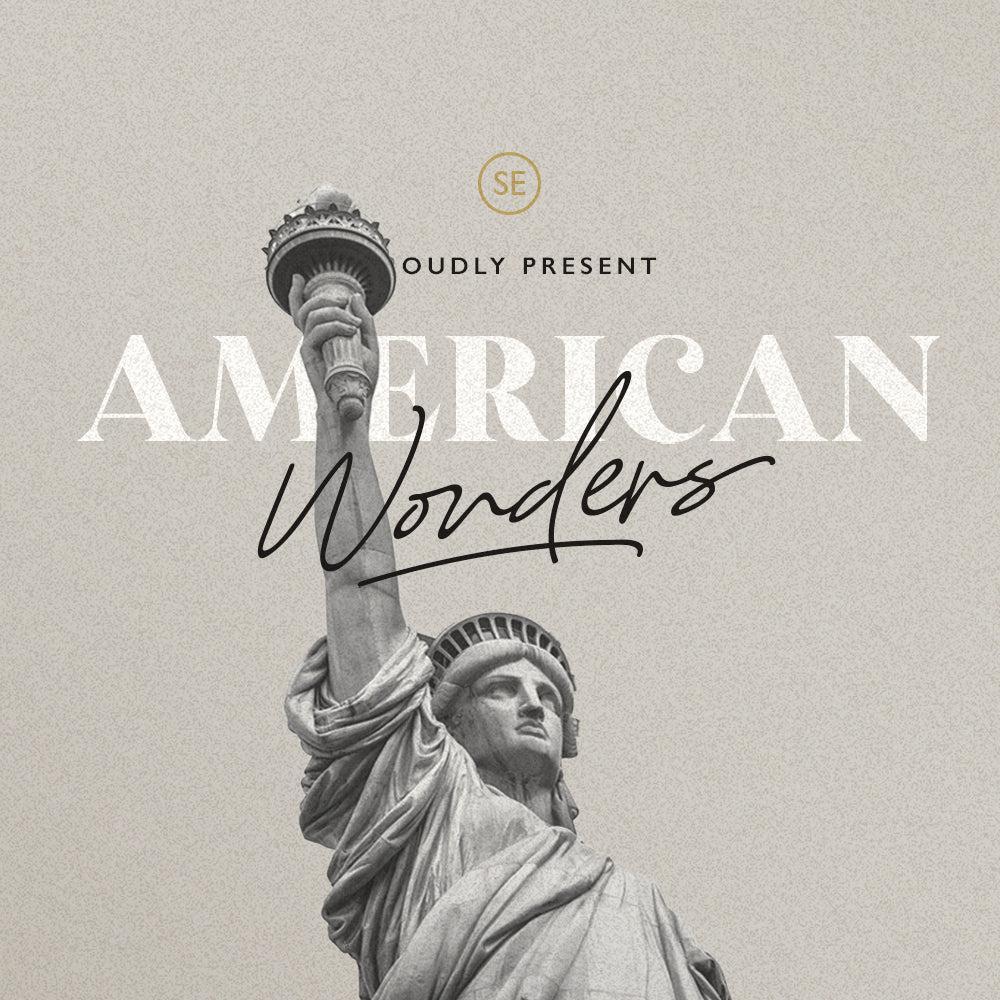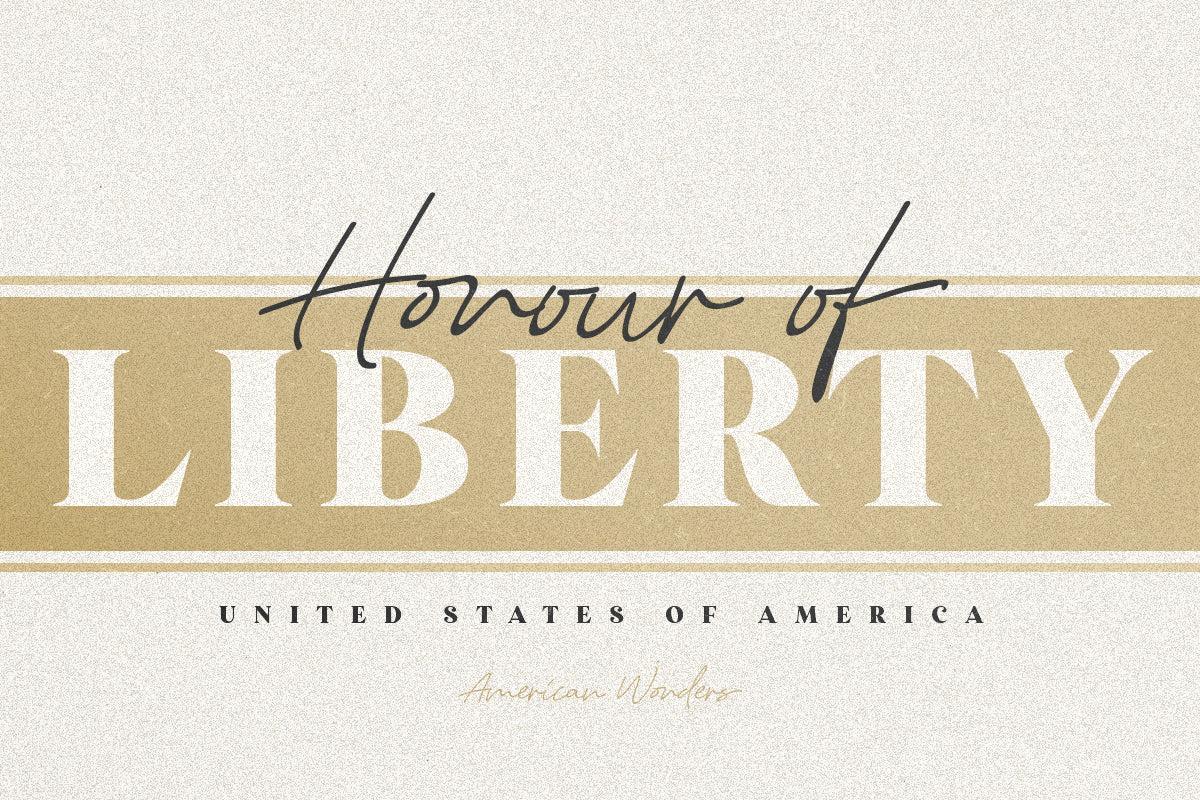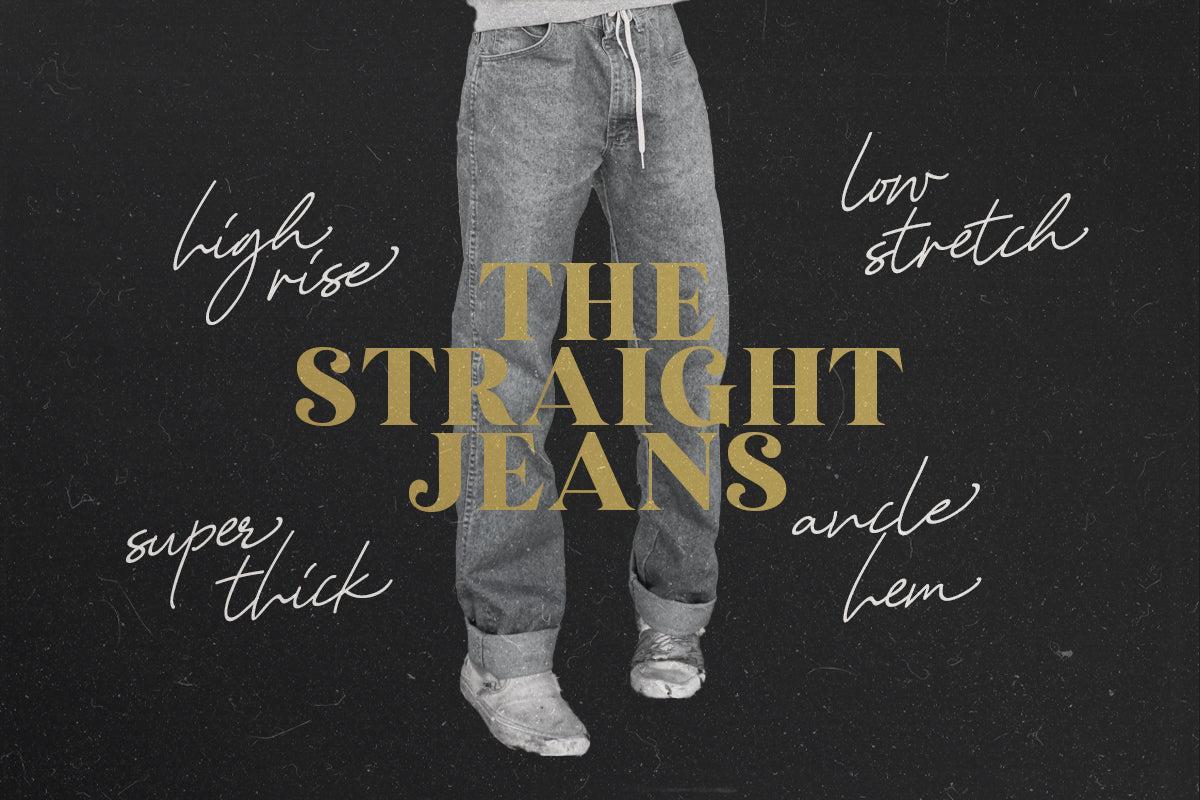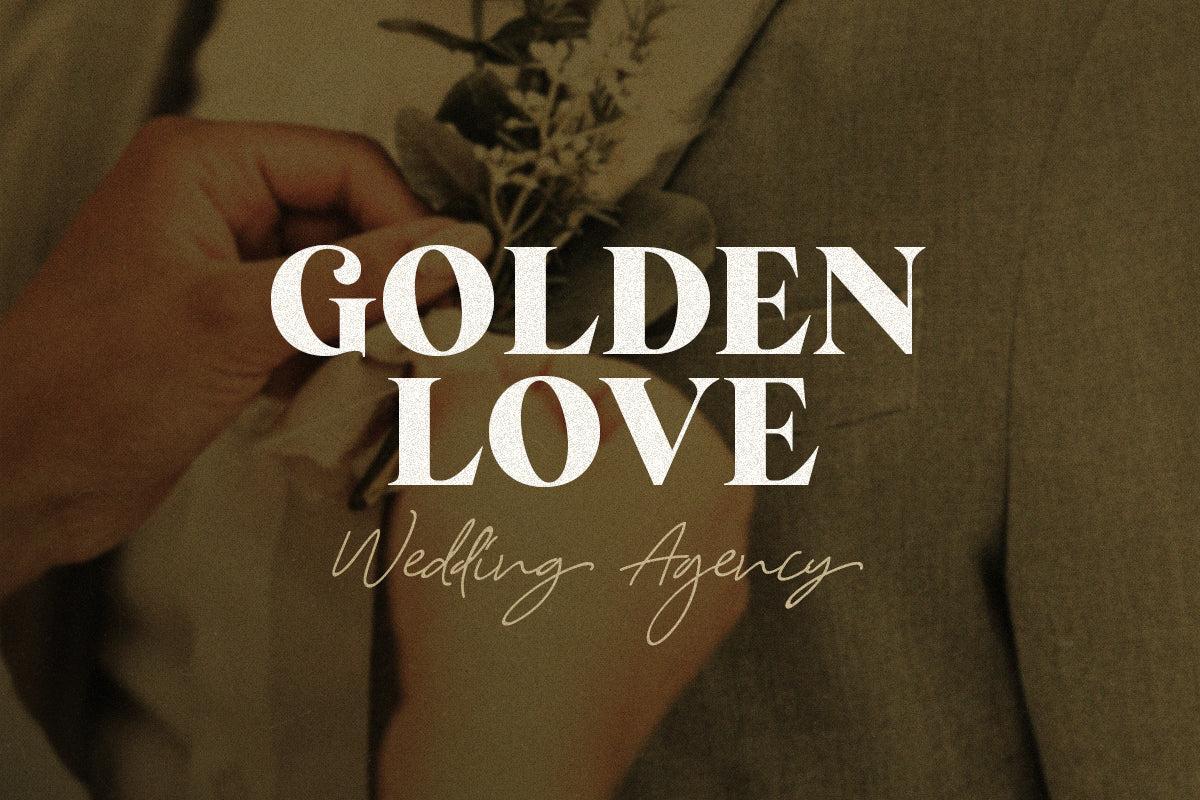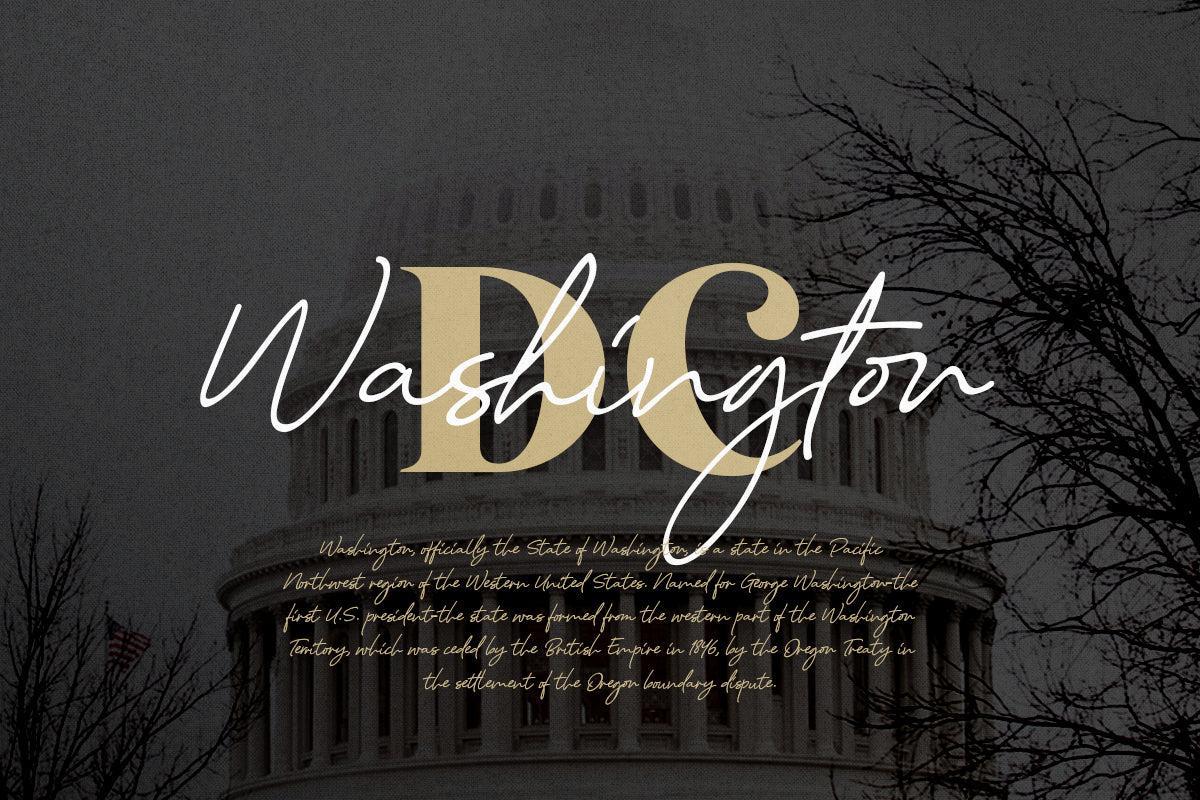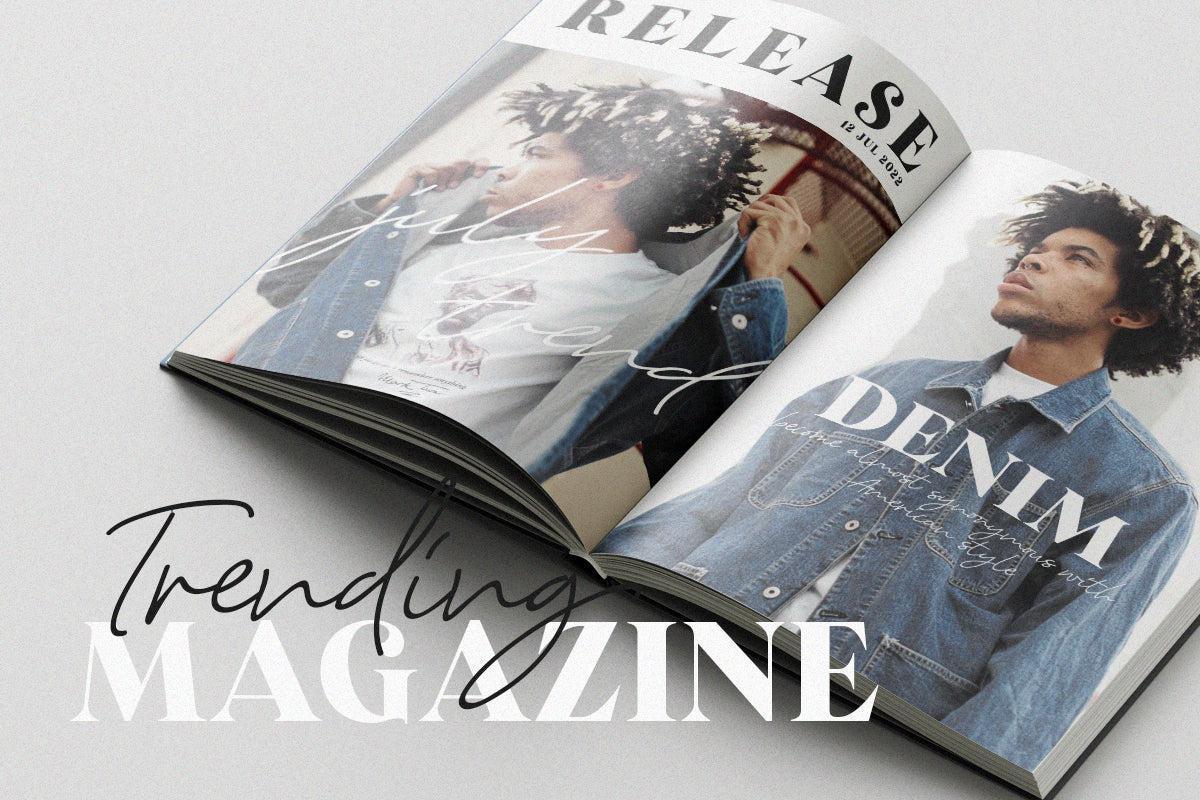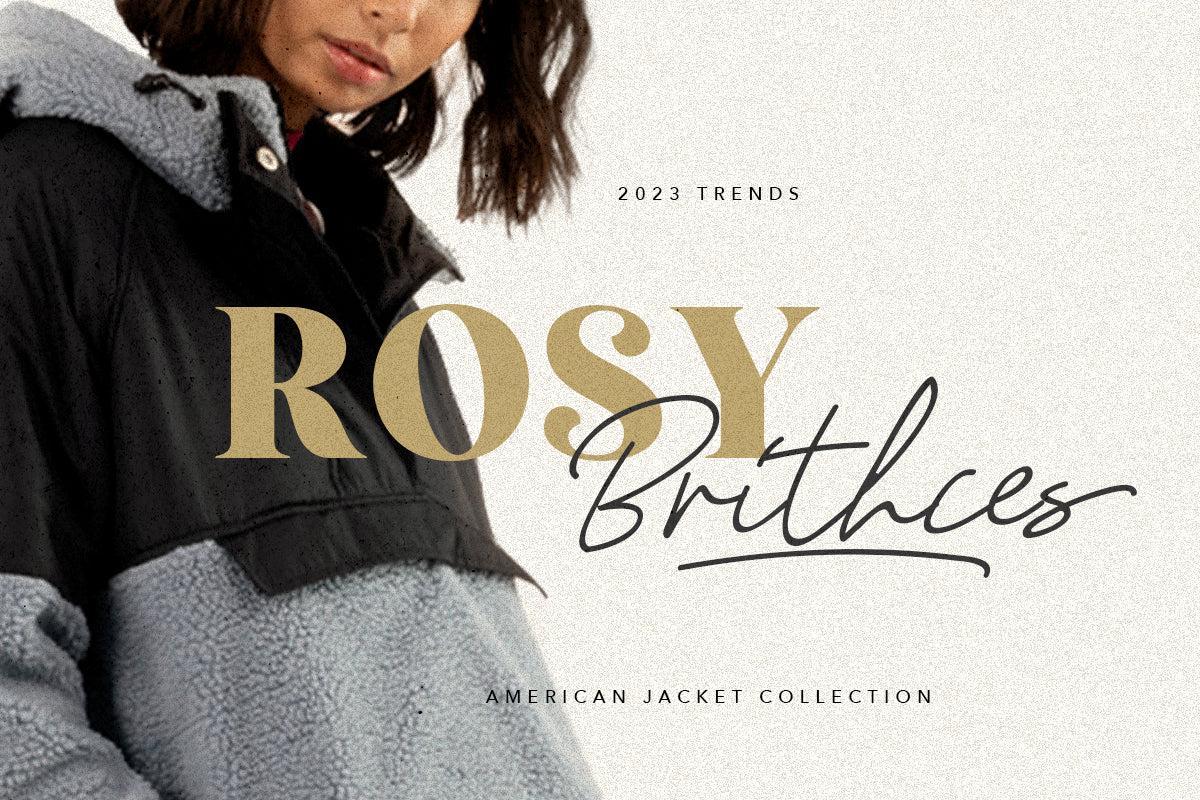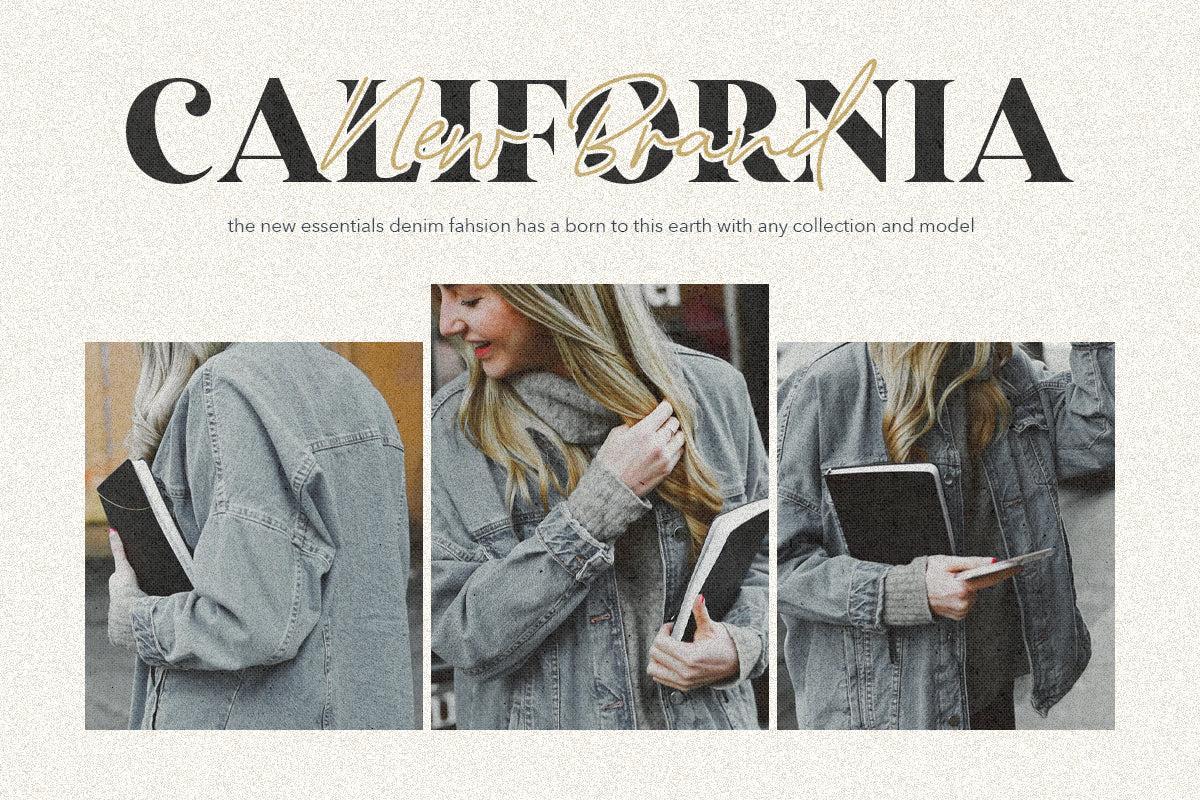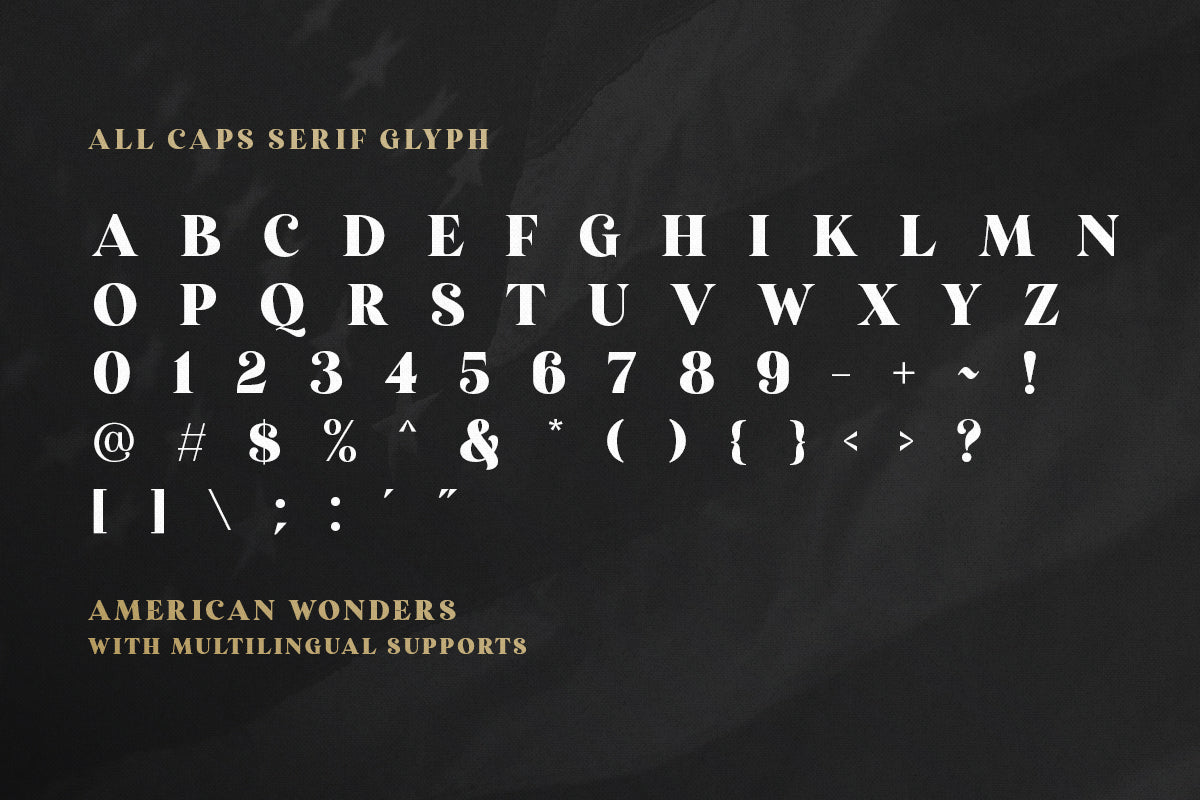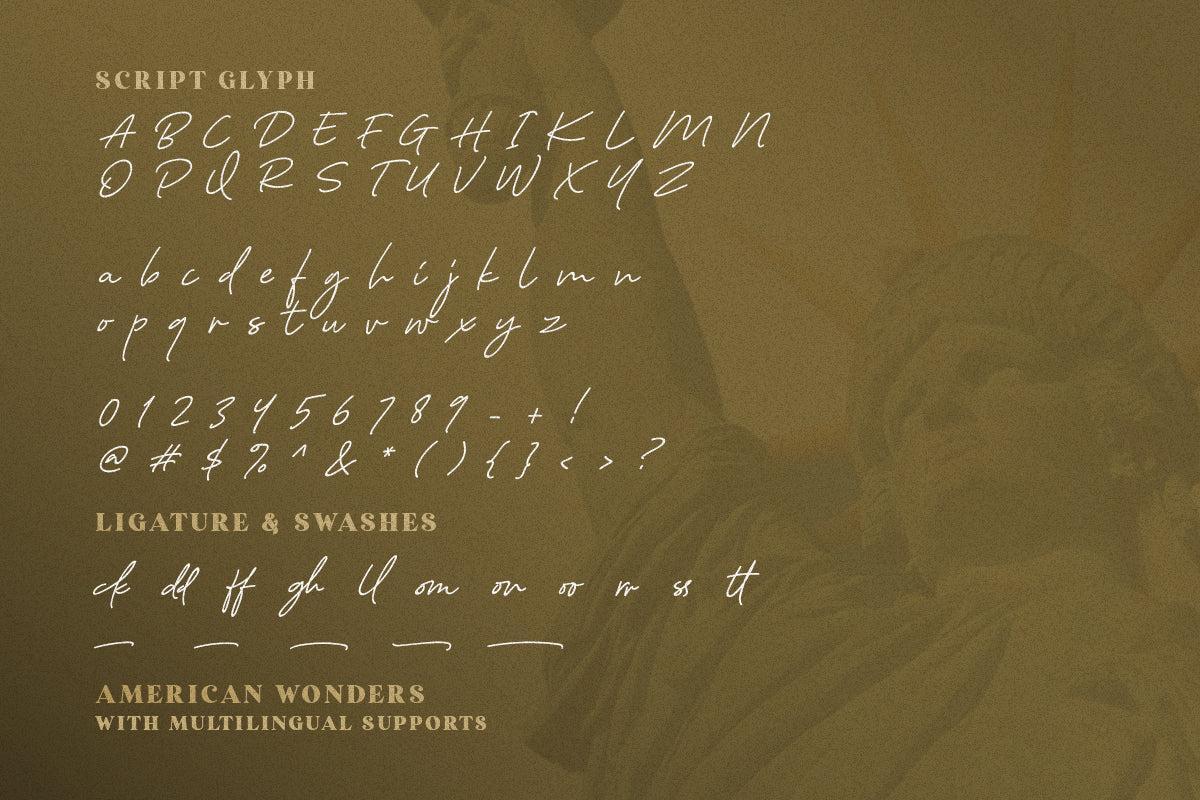
American Wonders - FONT DUO
American Wonders - FONT DUO includes two fonts: a signature script and a bold serif. This package offers a versatile combination of a strong serif font and a soft, authentic handwriting style, with support for multiple languages.